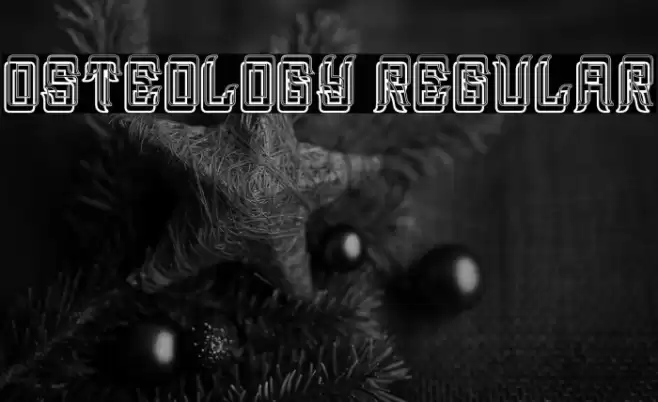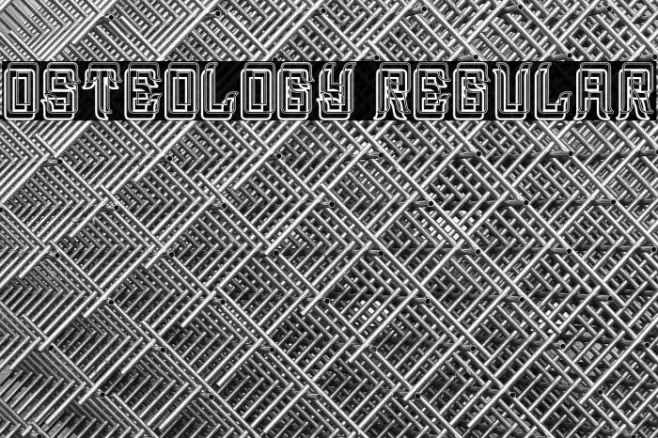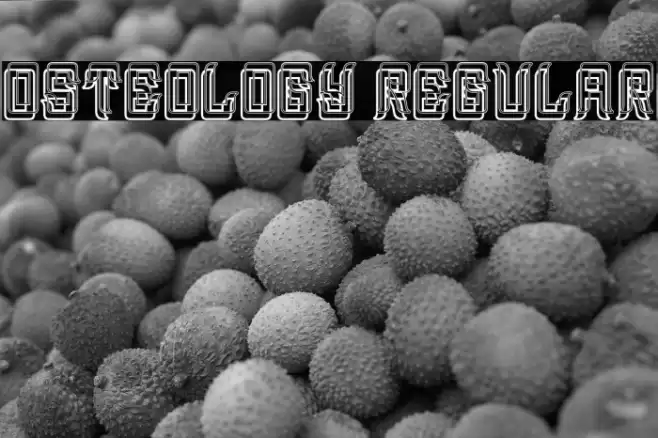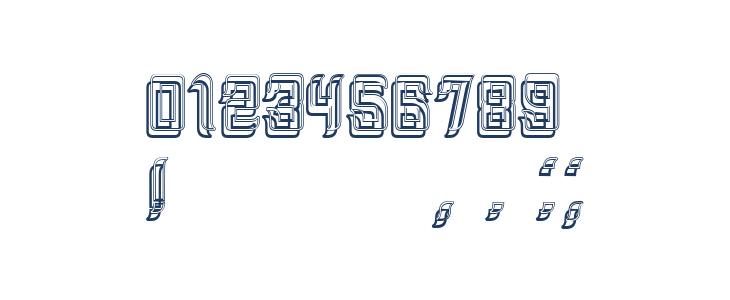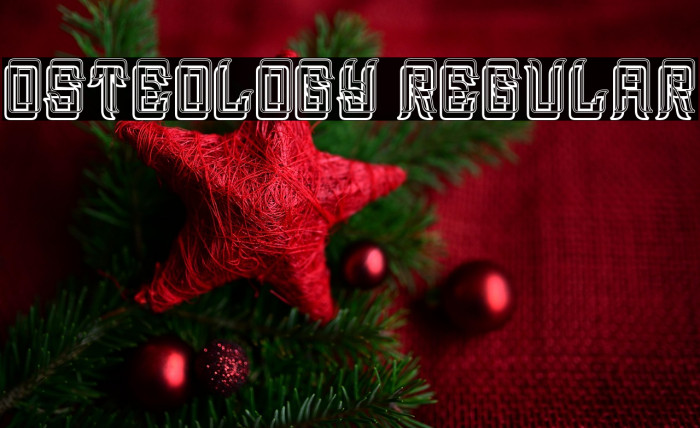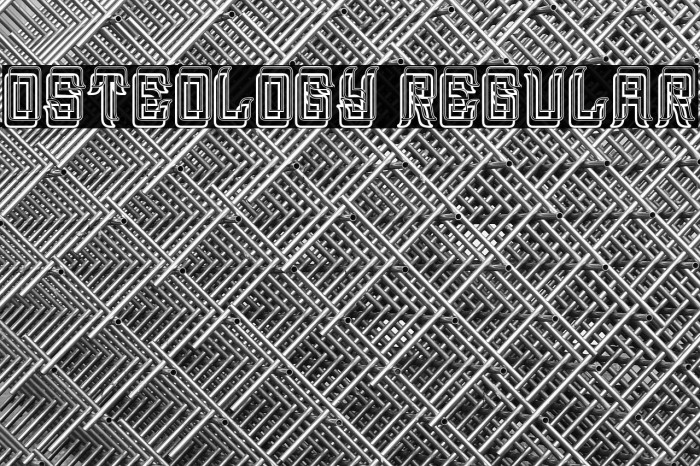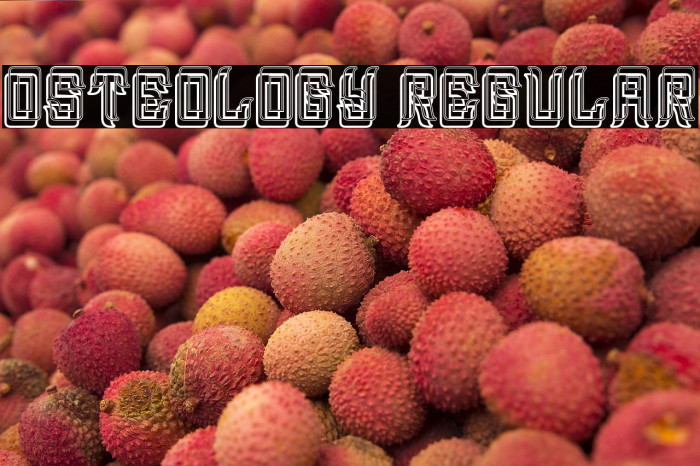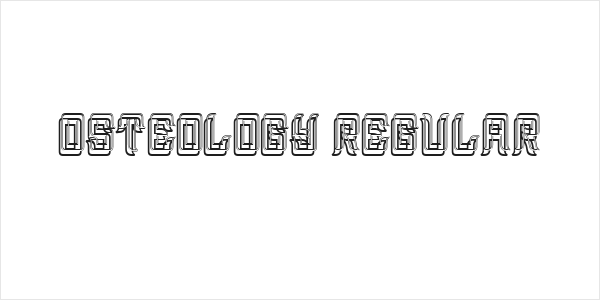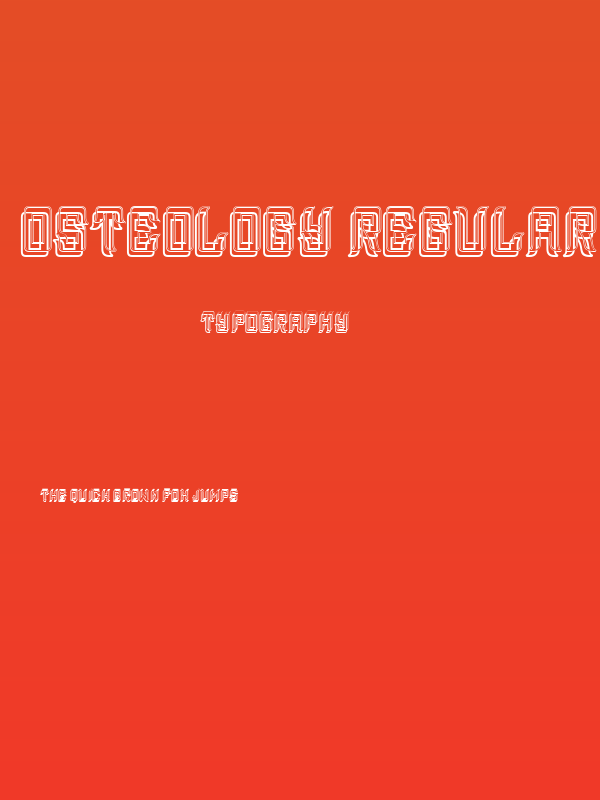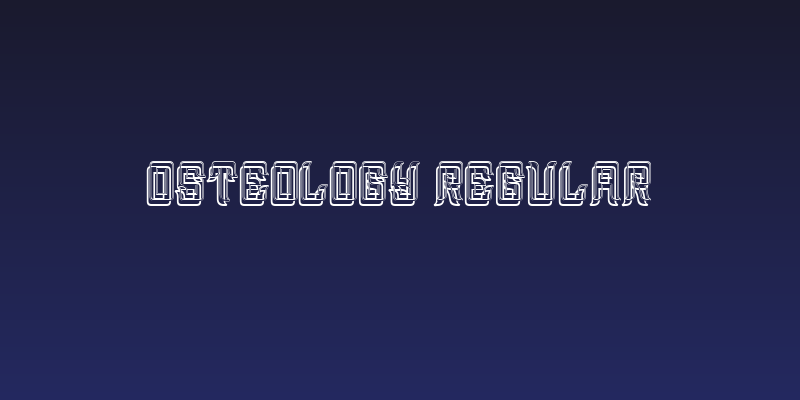
Osteology Regular Font
Osteology Regular Description
This font features a bold, three-dimensional design with a skeletal structure that gives it a unique and striking appearance. The characters are outlined with a double-layered effect, creating a sense of depth and complexity. Each letter and number is meticulously crafted, showcasing intricate details that resemble architectural elements. The font's geometric style is both modern and edgy, making it ideal for projects that require a standout visual impact. Its distinctive look is perfect for creative designs that aim to capture attention and convey a sense of innovation.
A bold, three-dimensional font with a skeletal, architectural design from Uncategorized fonts.
- Proposed Projects: Ideal for posters, album covers, video game graphics, and branding that requires a bold statement.